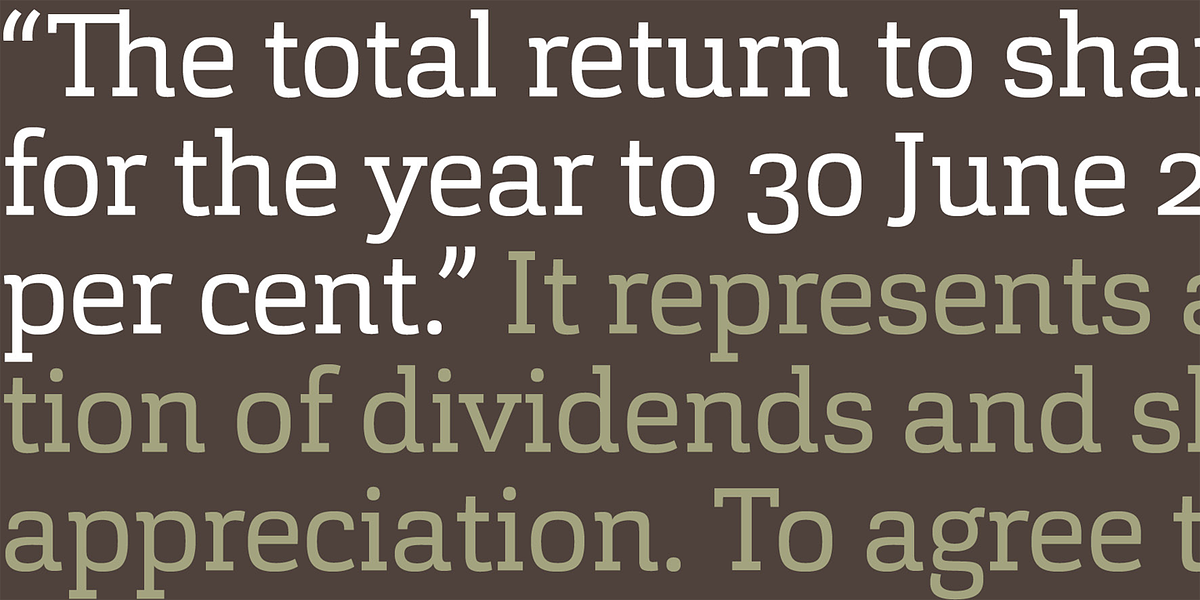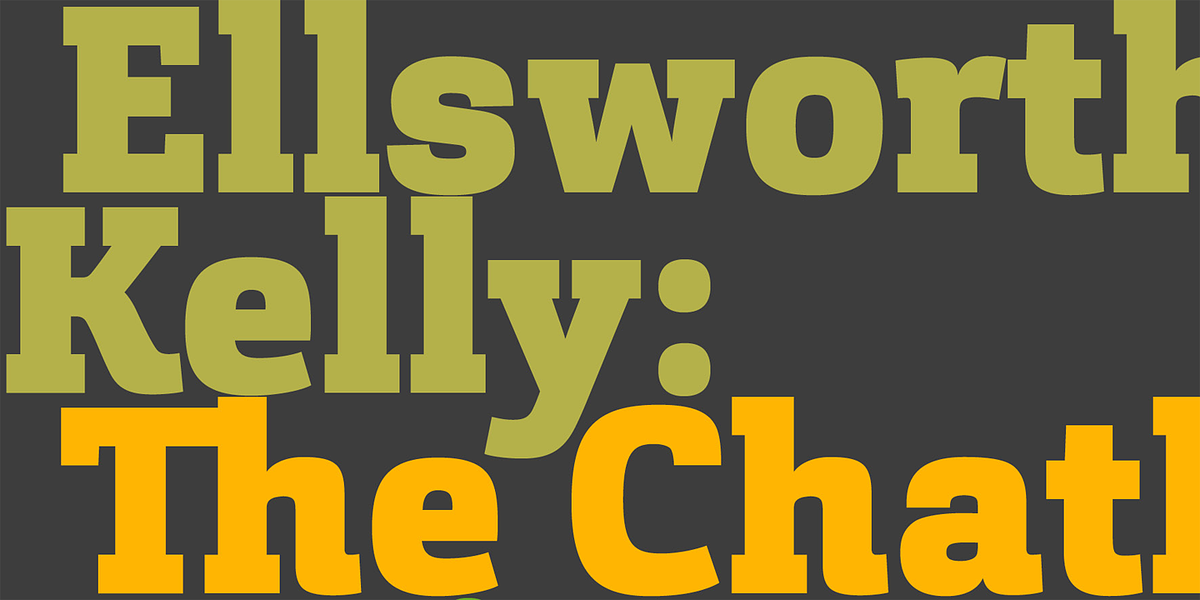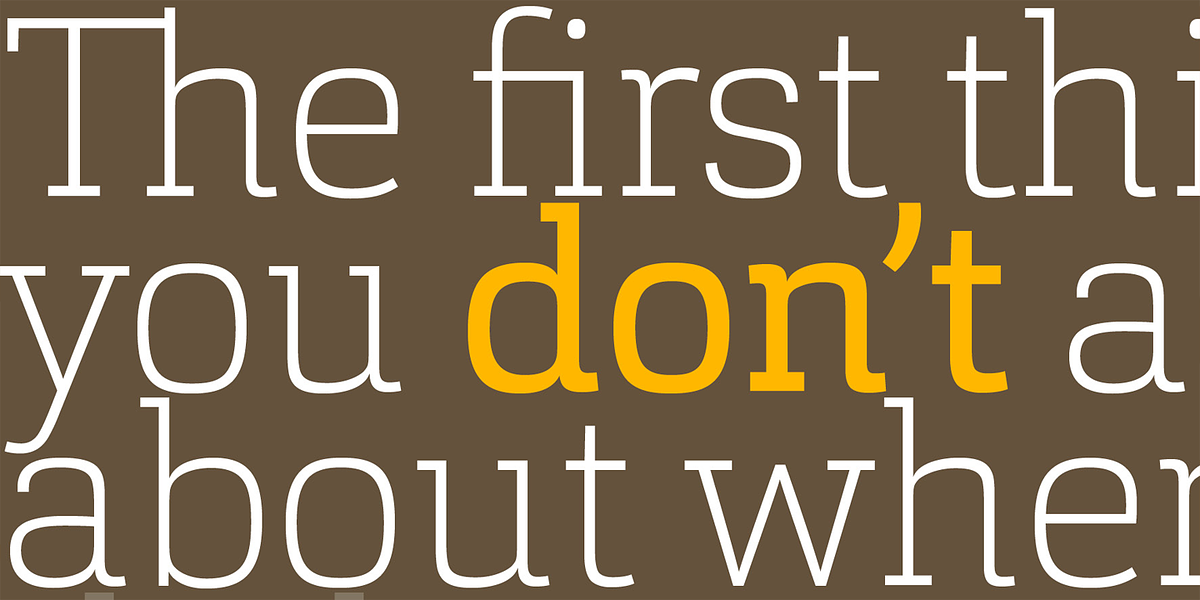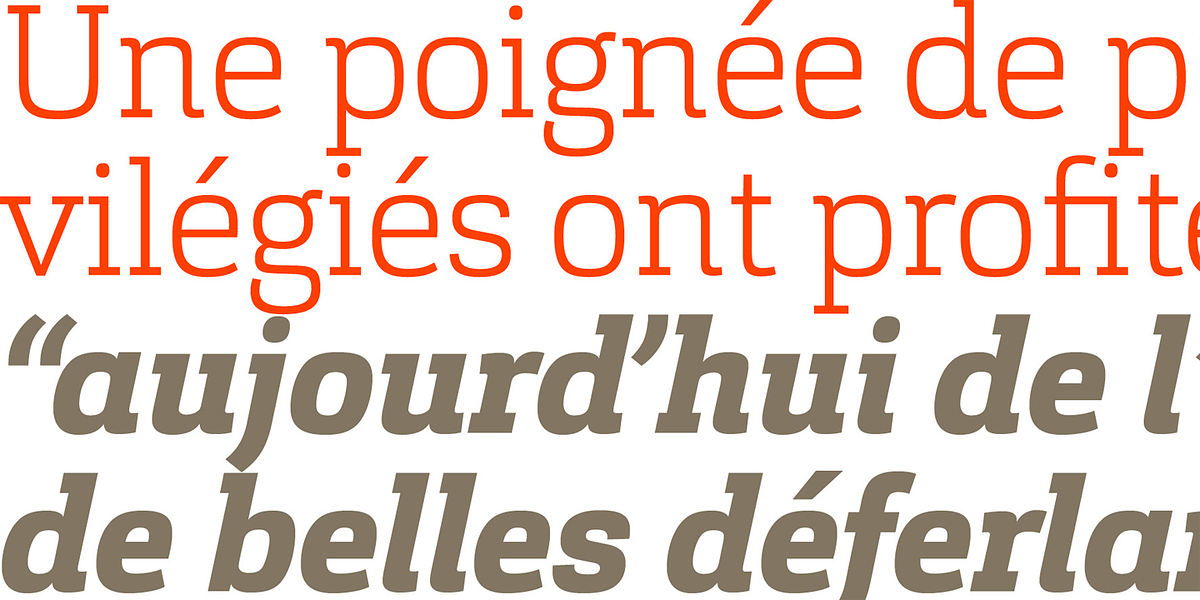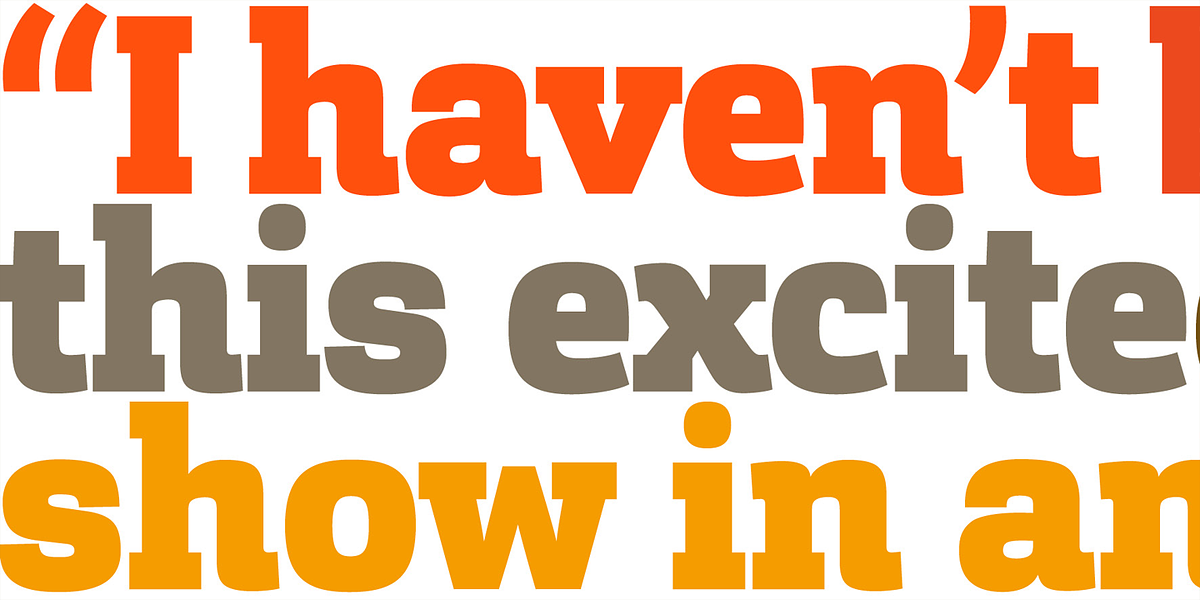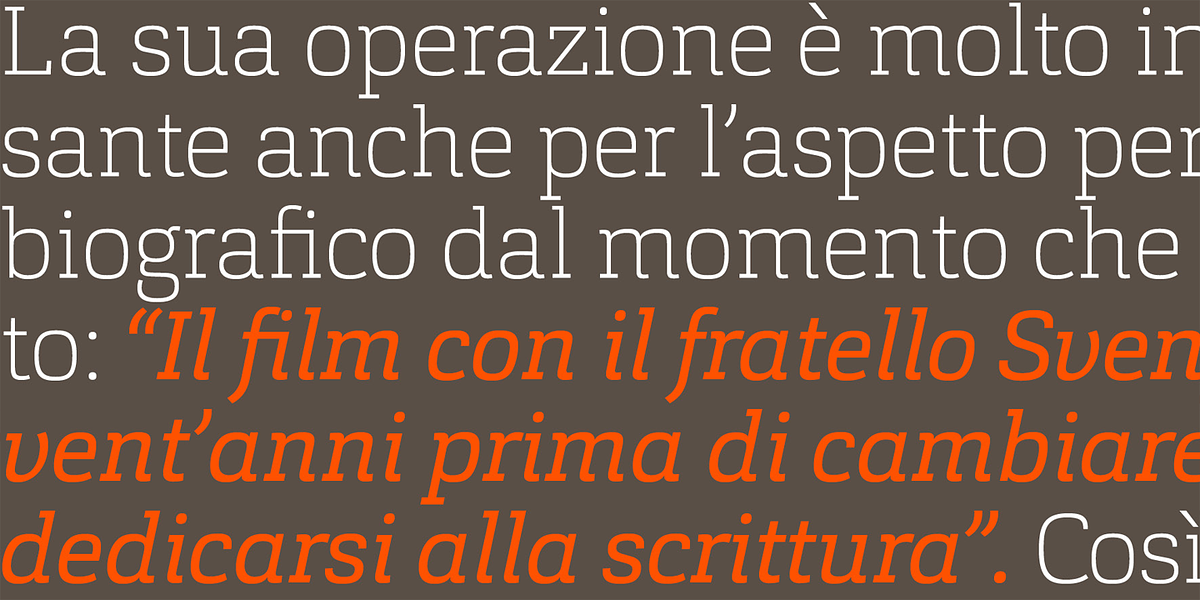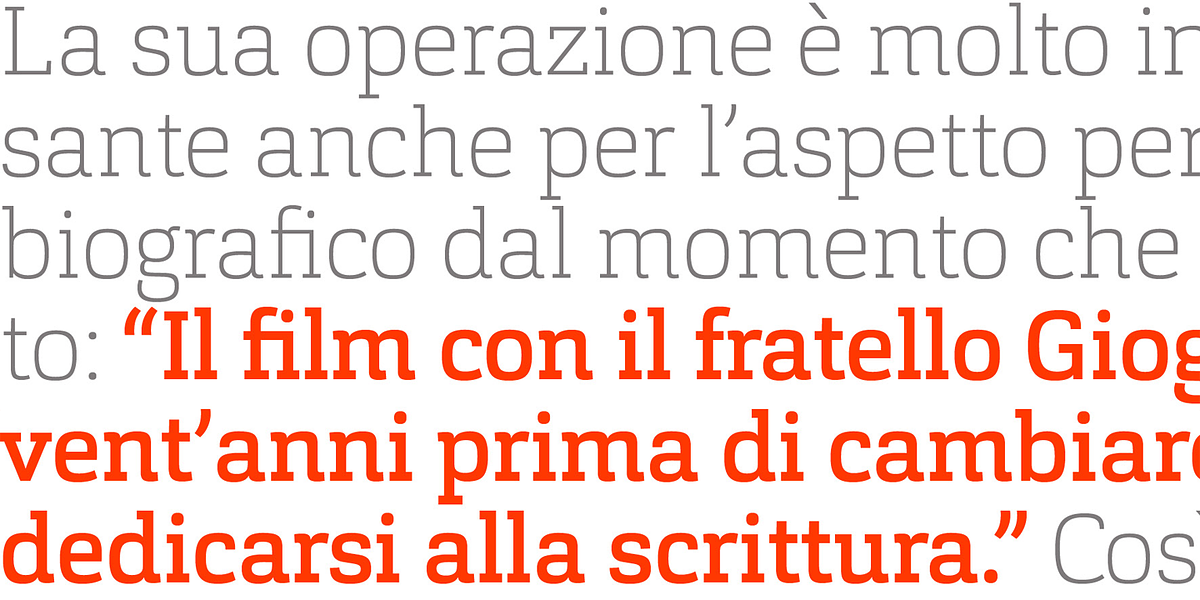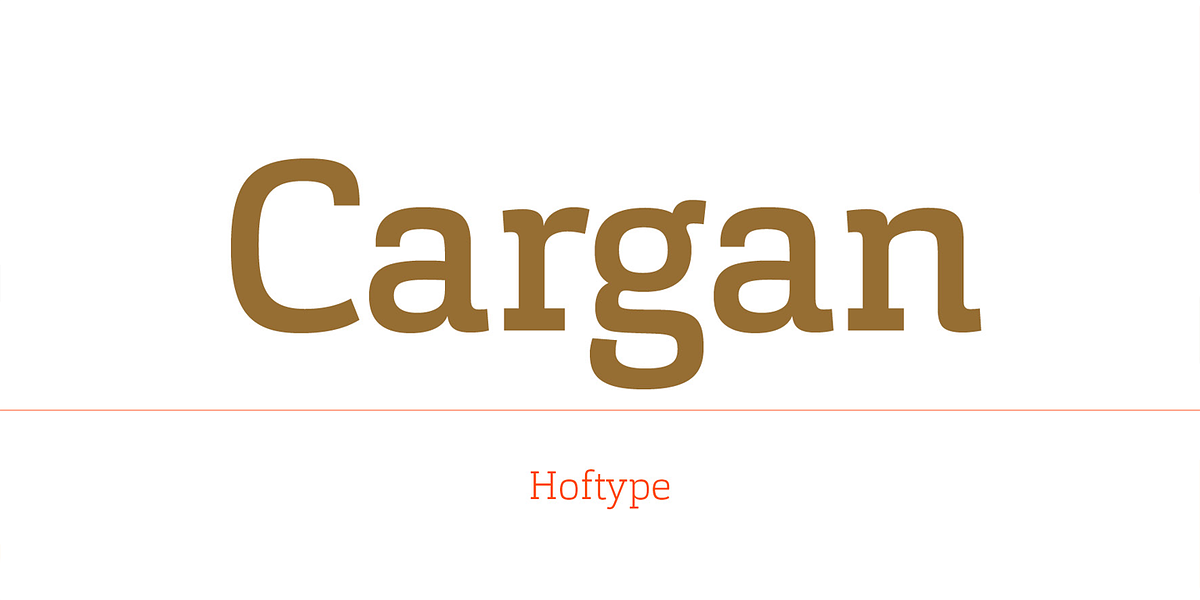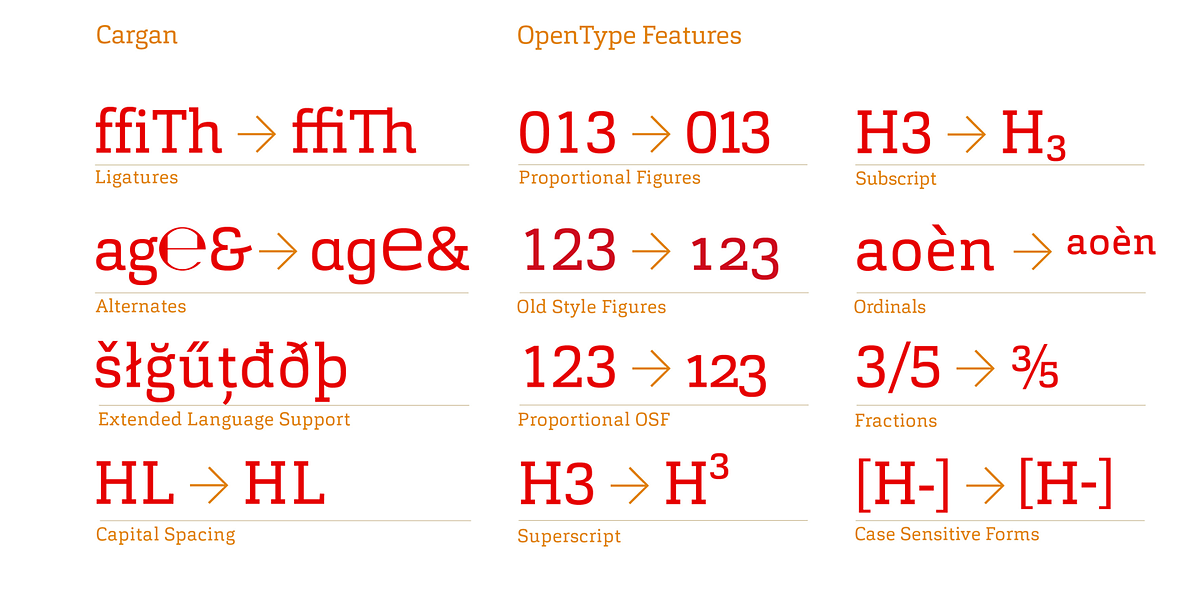
Cargan
Cargan is a slab serif typeface designed for versatility. It excels in both display applications like headlines and subheads, as well as shorter blocks of body text. The family includes 16 styles, indicating a range of weights to accommodate diverse typographic needs.